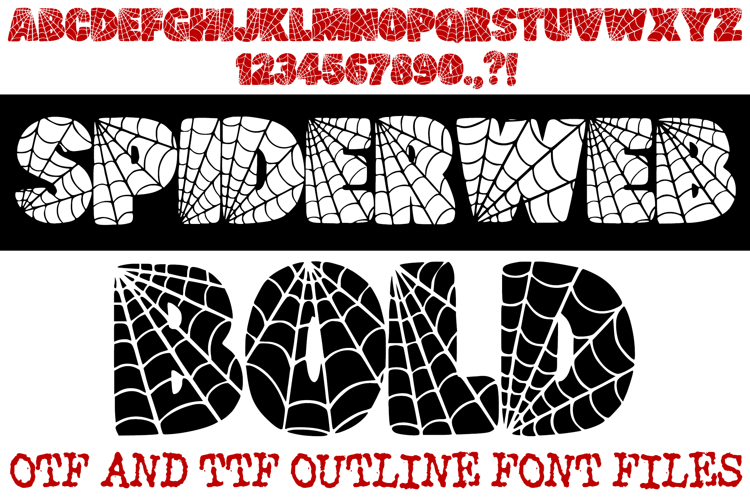
Spiderweb Bold Font Spooky Halloween Web Typography Letters
Spin a spooky web of creativity with the Spiderweb Bold Font! This high-impact display typeface is intricately designed with a built-in spiderweb pattern, making it the ultimate choice for Halloween party invitations, spooky branding, horror-themed apparel, and seasonal home decor.
The font features thick, rounded "bubble" characters that provide excellent legibility while maintaining a playful yet eerie aesthetic. Whether you are designing for a haunted house event, creating "trick or treat" stickers, or building a gothic social media presence, this font delivers a professional, web-filled look instantly.
Why Your Designs Will Be Spooktacular:
Intricate Web Detailing: Every character (A-Z) and number (0-9) features a unique, hand-drawn spiderweb internal texture.
High Contrast Style: The bold silhouettes ensure your text pops against any background, from dark posters to bright seasonal flyers.